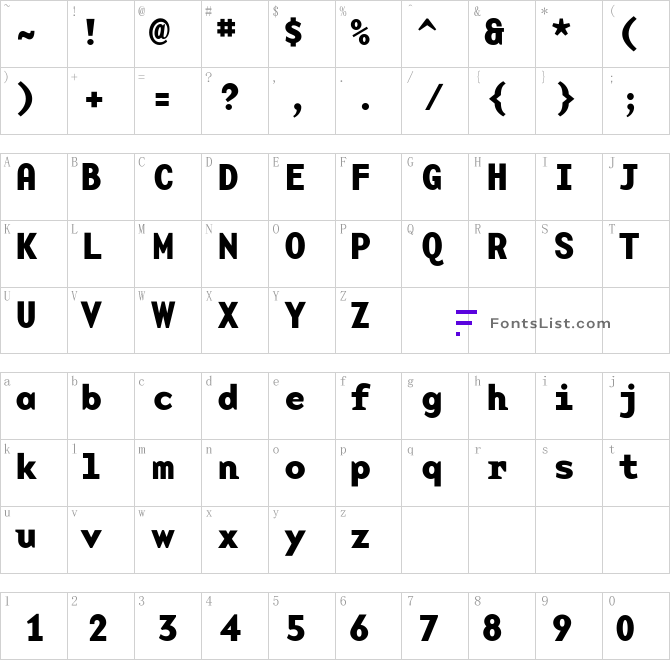
- Font Name:BaseMonoWide
BaseMonoWide-Bold.ttf is a very beautiful artistic font, BaseMonoWide-Bold.ttf is widely used in the design and printing of various books and pictures,BaseMonoWide-Bold.ttf has a strong visual impact,BaseMonoWide-Bold.ttf is a commonly used font in newspapers, magazines and books, and is used in posters, e-commerce Poster design, store design, logo design, font design and other fields.BaseMonoWide-Bold.